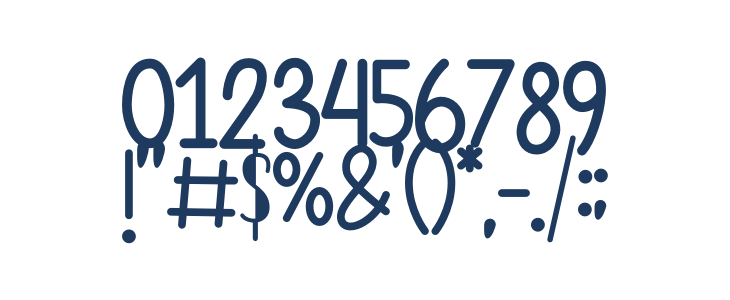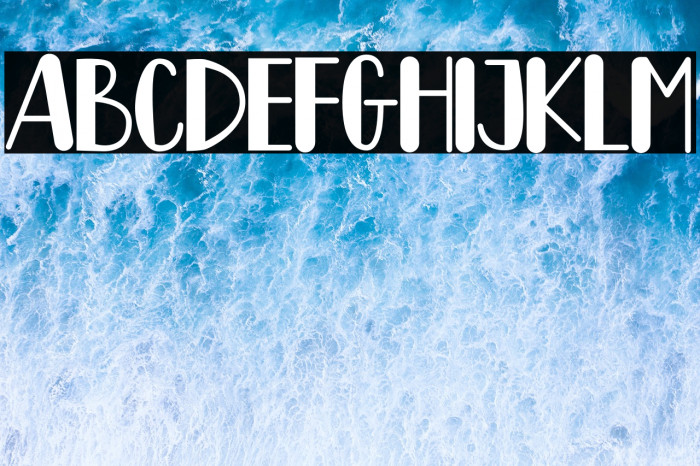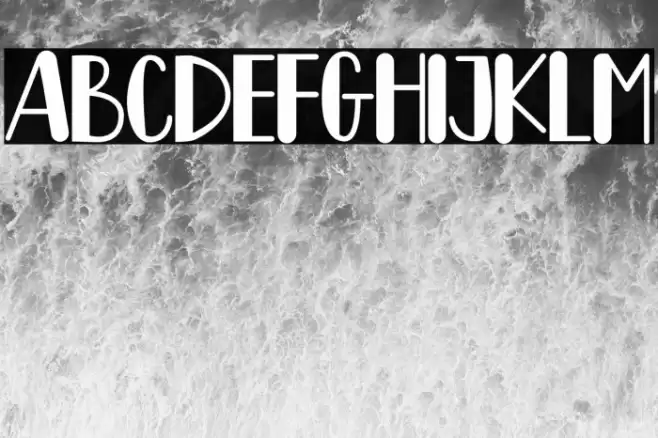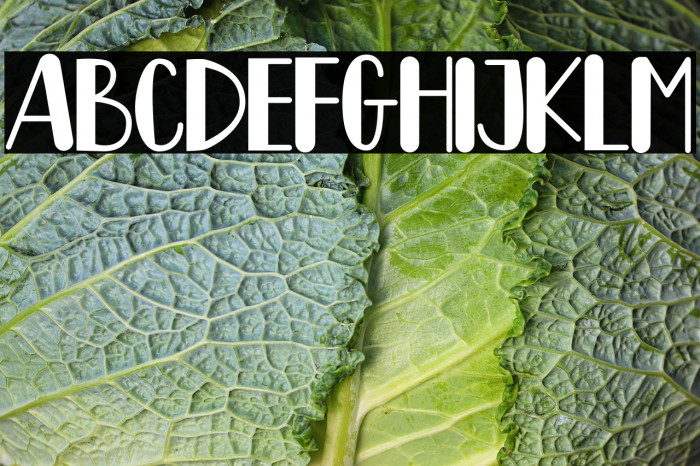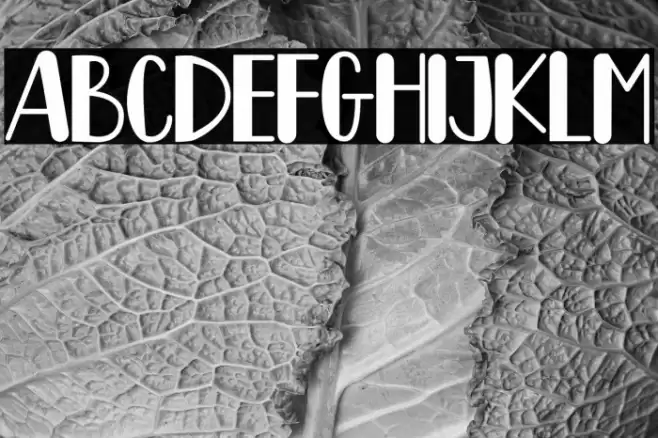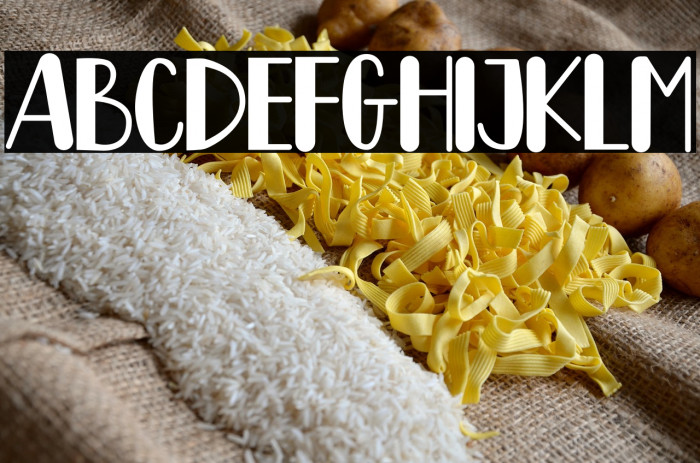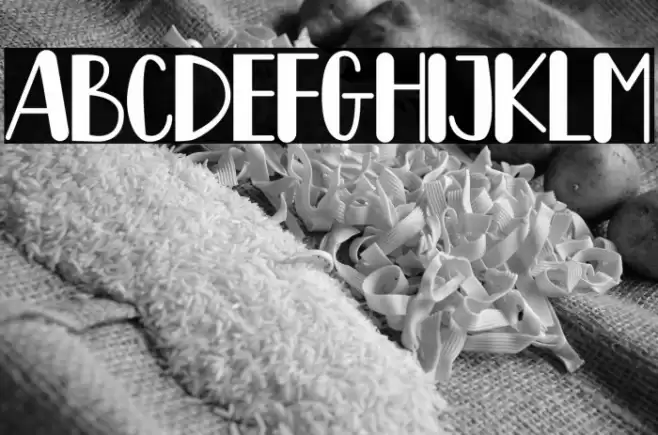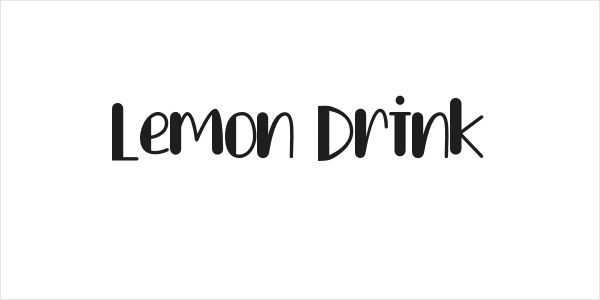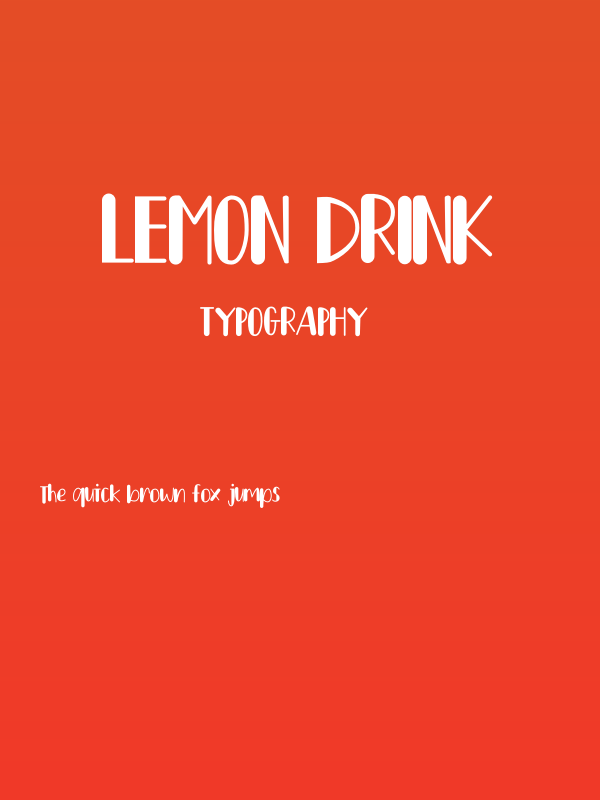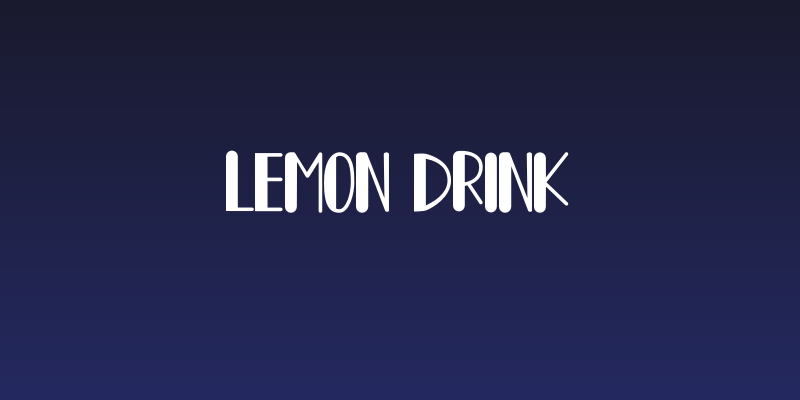
Lemon Drink Font
Lemon Drink Description
This font features a playful and whimsical style, characterized by its rounded and slightly irregular letterforms. The uppercase letters are bold and prominent, with a consistent stroke width that gives them a strong presence. The lowercase letters maintain the playful aesthetic, with some characters exhibiting unique loops and curves that add to the font's charm. The numerals are clear and easy to read, matching the overall style with their rounded edges. Special characters are creatively designed, maintaining the font's cohesive look. This font is ideal for projects that require a fun and approachable feel, such as children's books, playful branding, or casual invitations.
| Proposed Projects | Children's books, playful branding, casual invitations, greeting cards. |